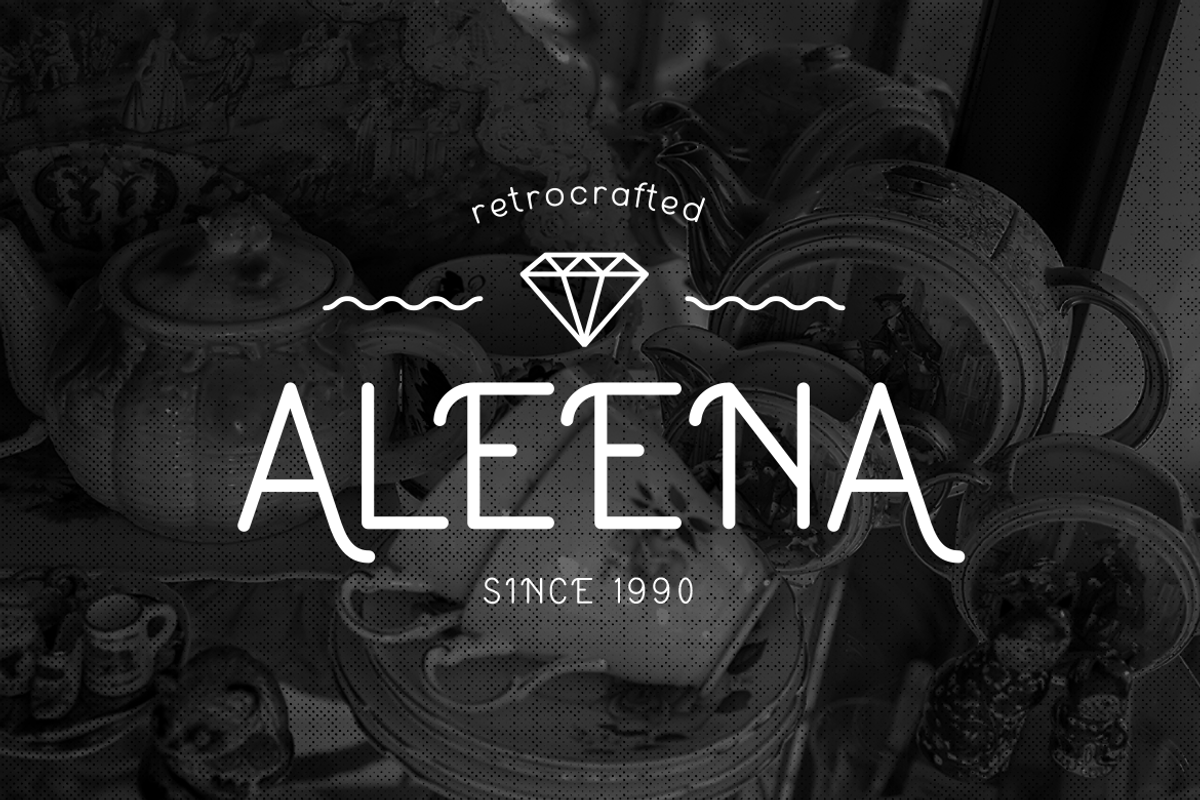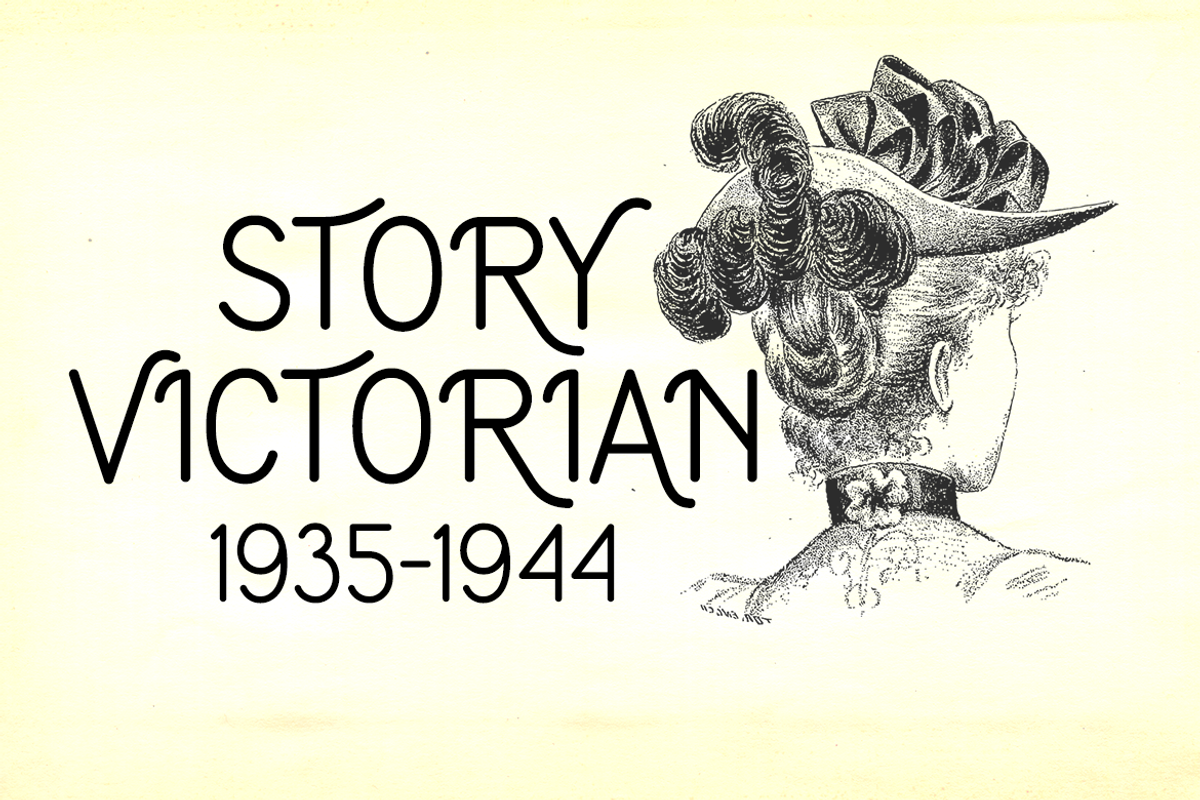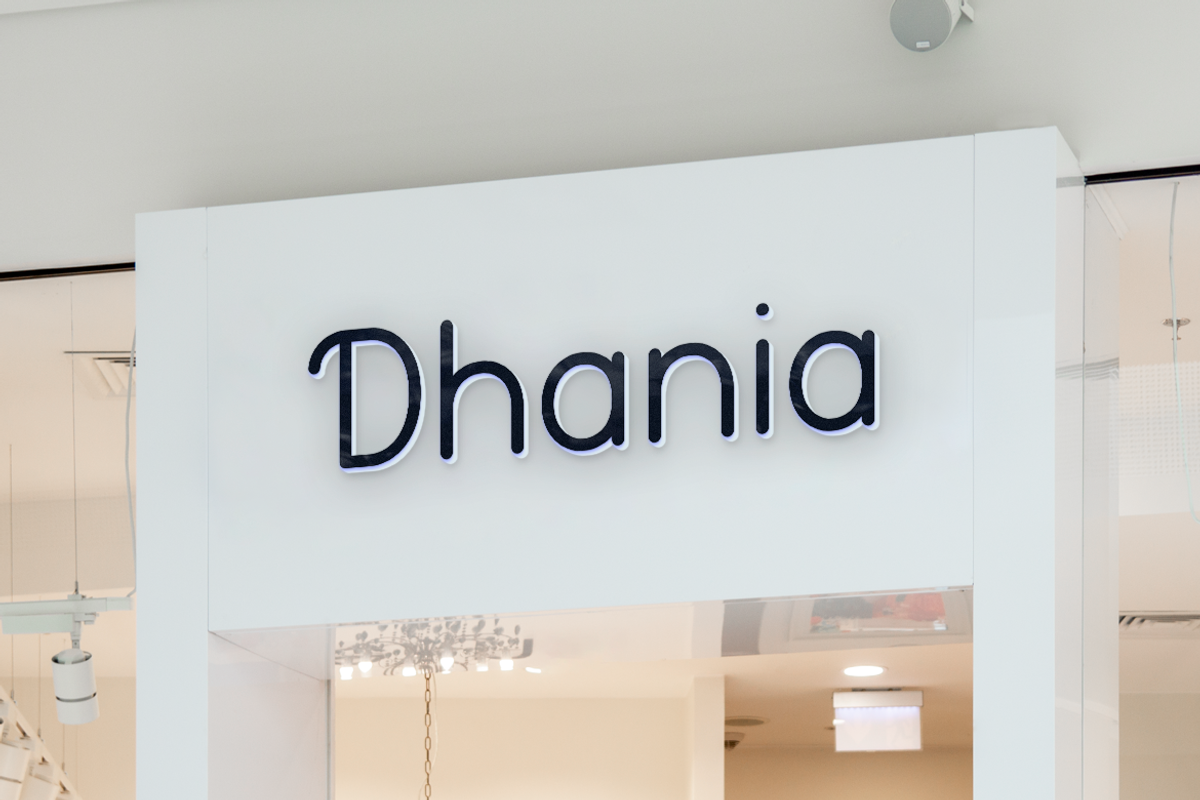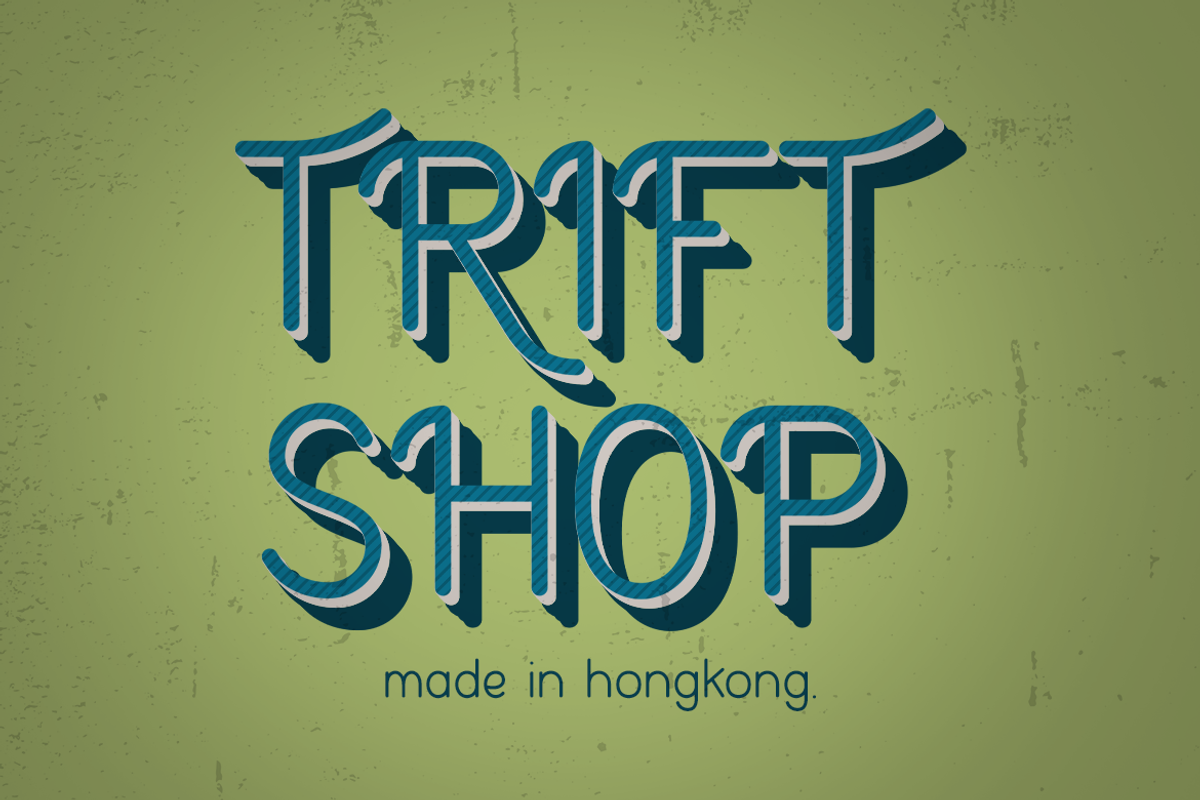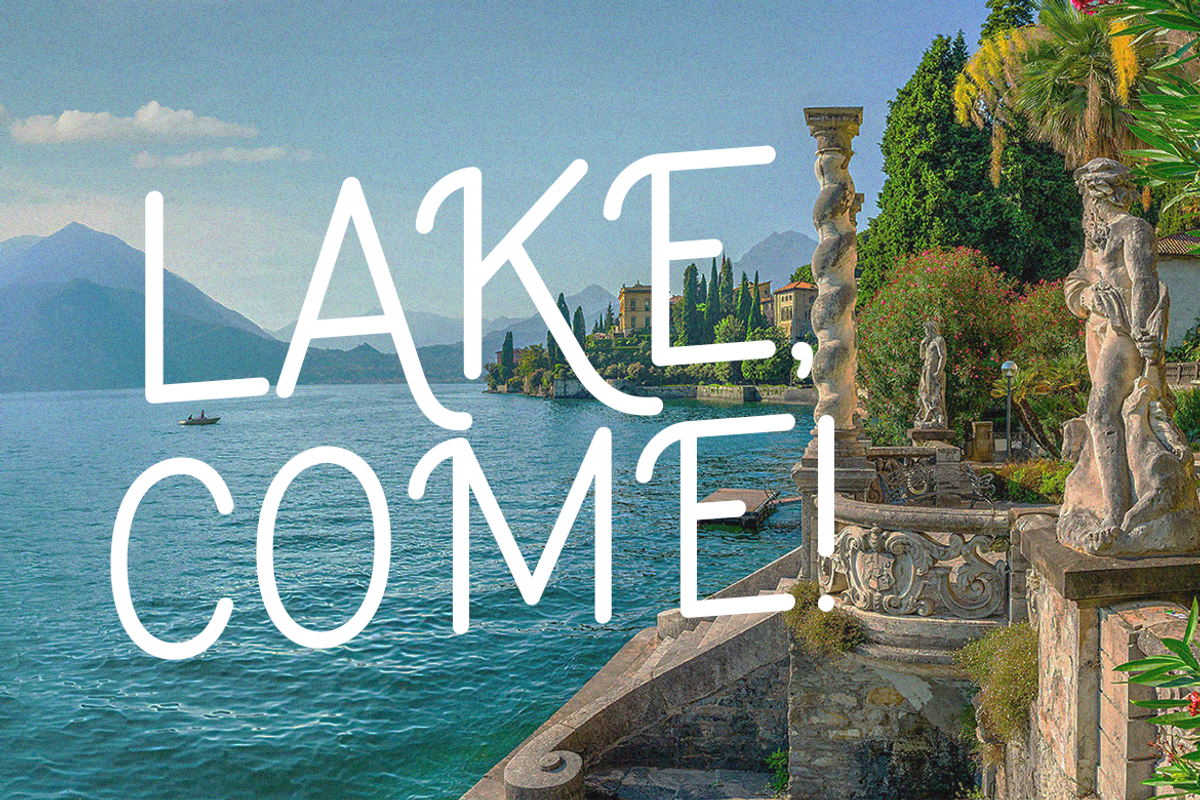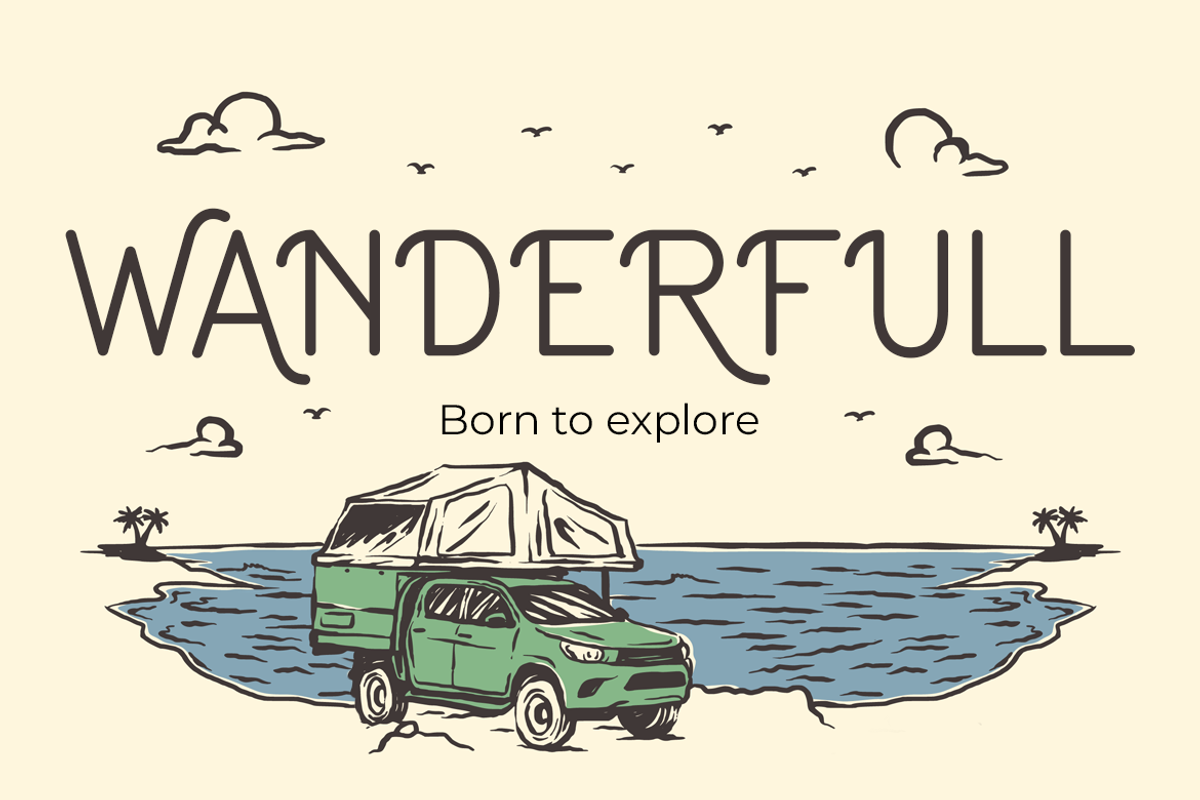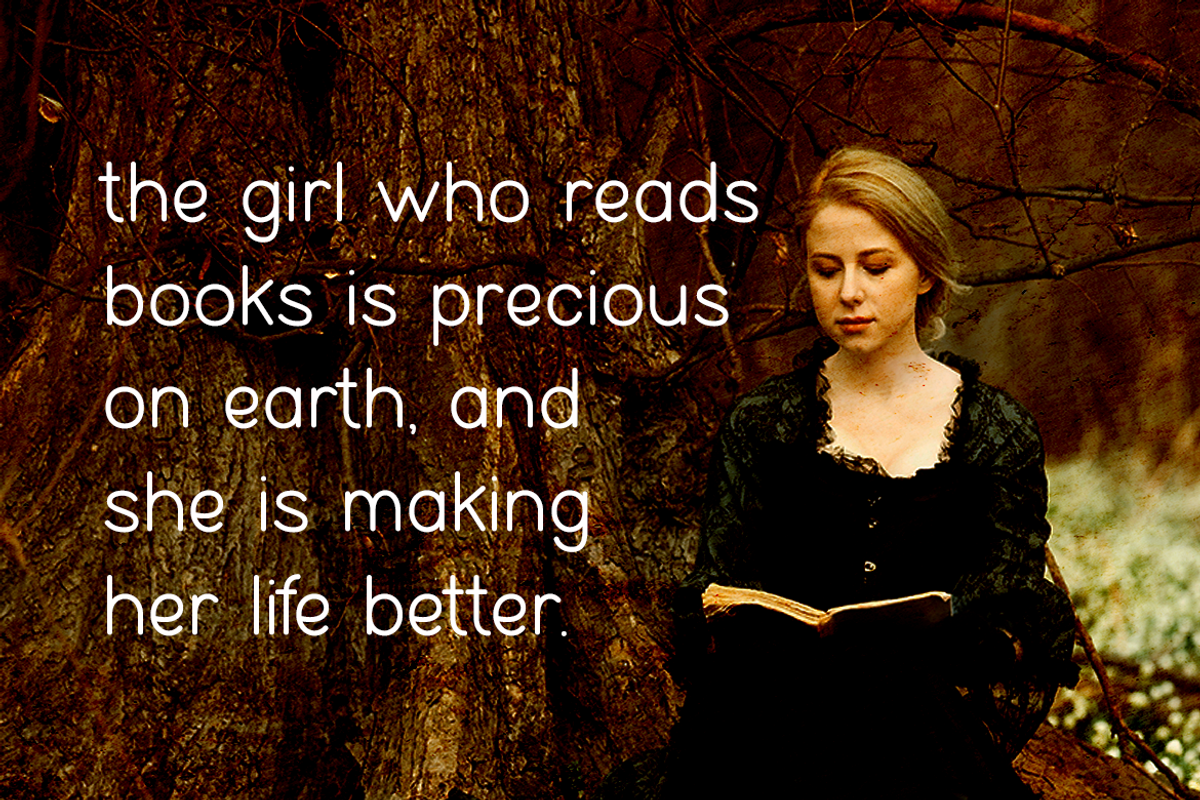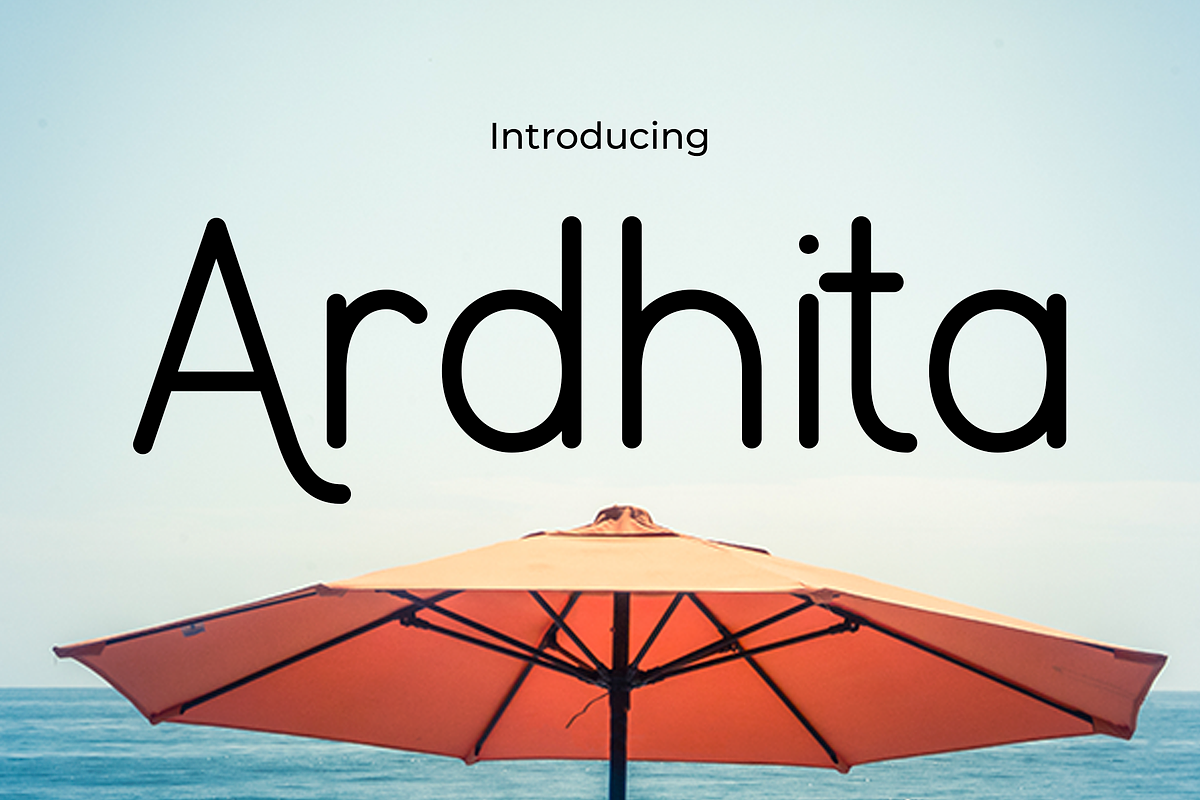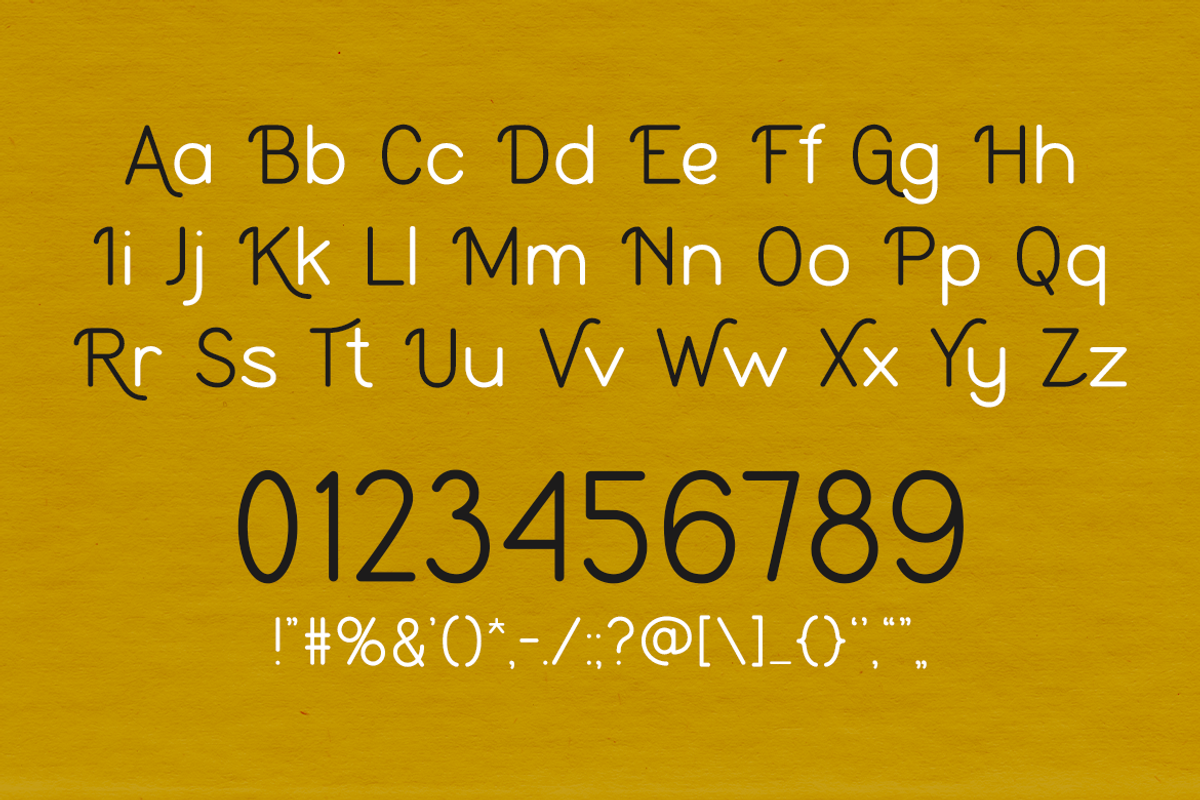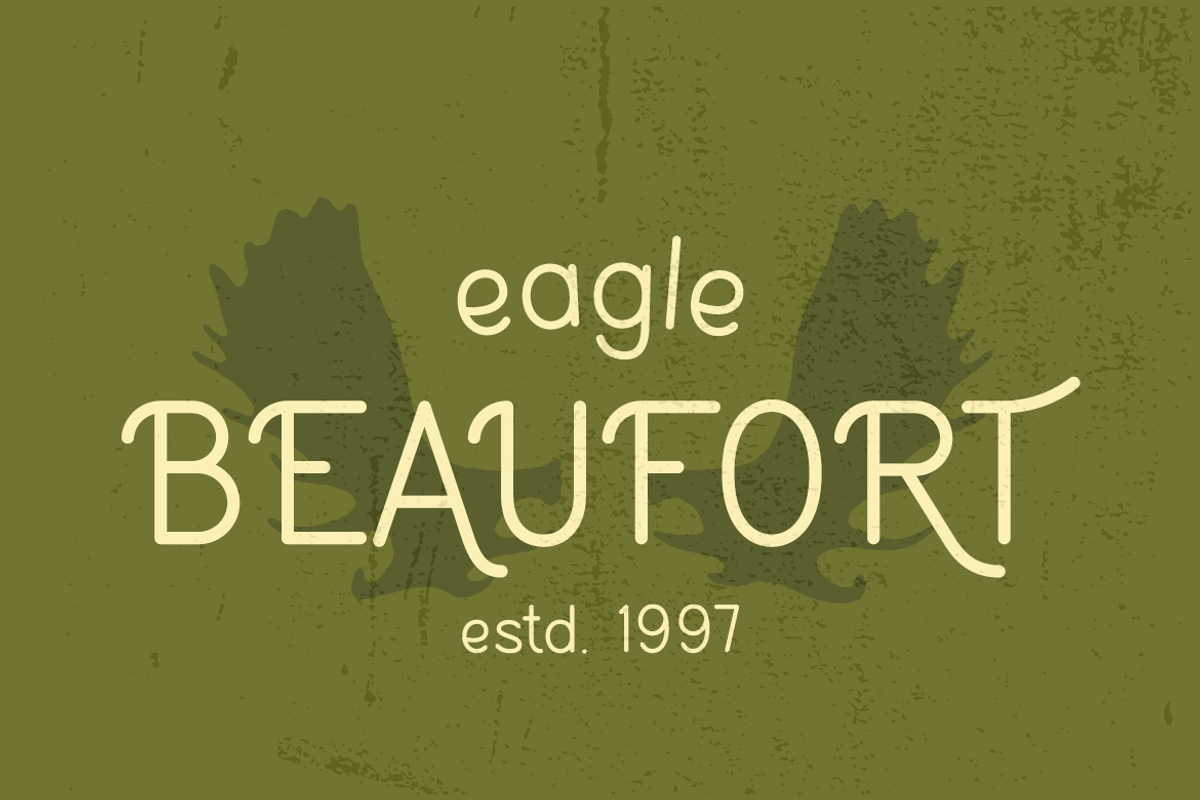
Ardhita
Ardhita – Elegance in Classic Vintage Style
Ardhitā, a font of timeless elegance and classic vintage allure, beckons with its meticulously crafted details and ornate flourishes. With a grace reminiscent of bygone eras, it offers a touch of refined nostalgia, making it an ideal choice for luxury branding, wedding invitations, and upscale editorial layouts. This versatile typeface seamlessly blends traditional aesthetics with a contemporary twist, adding a regal touch to logos, quotes, invitations, and packaging. Ardhitā is not just a font; it’s a journey through time, infusing projects with a timeless sophistication that bridges the past and the present seamlessly.